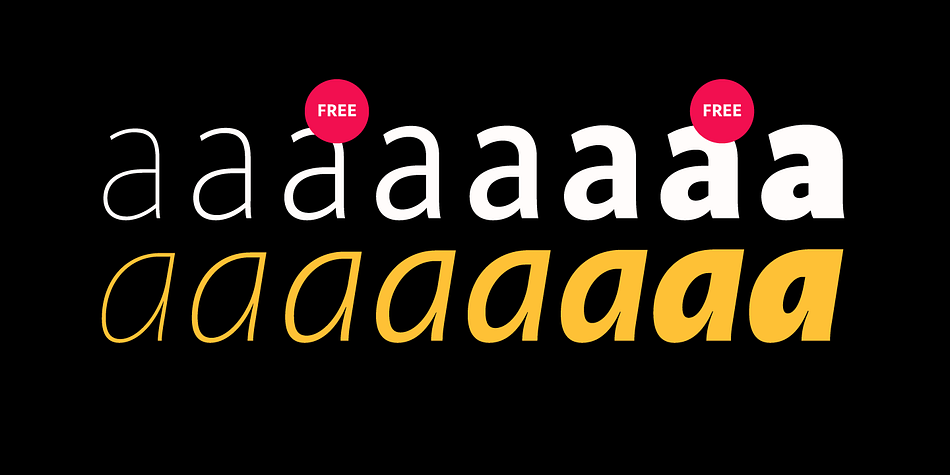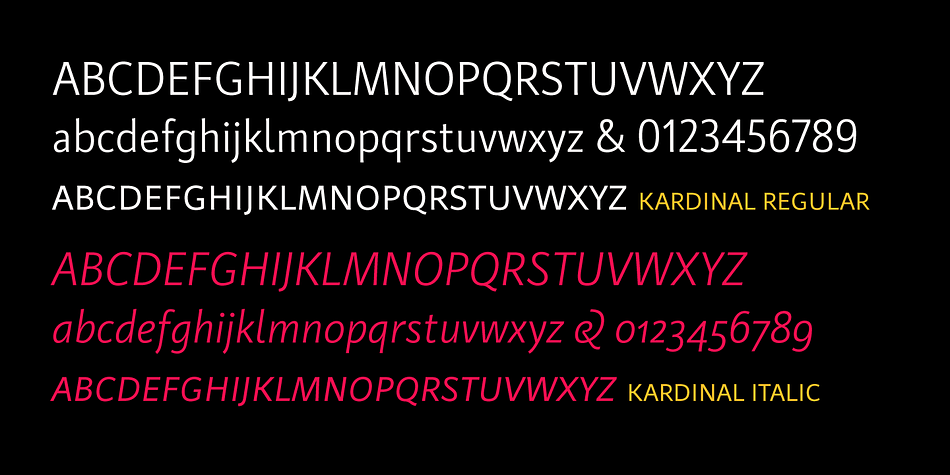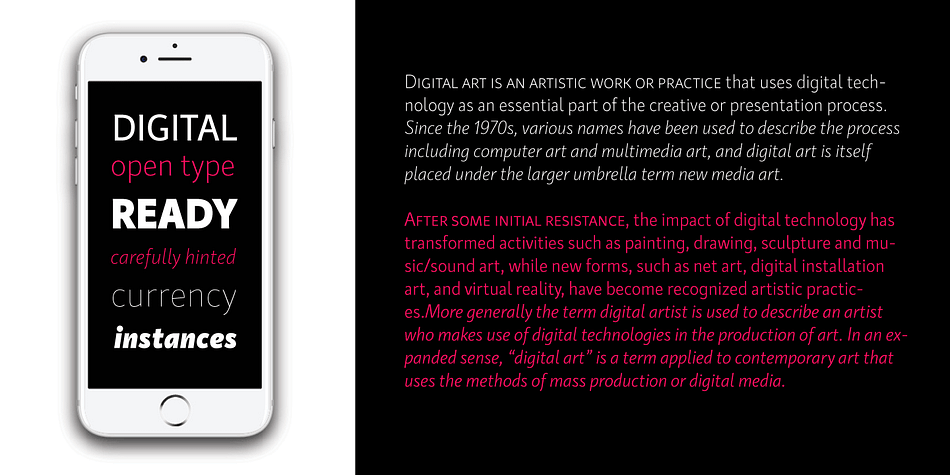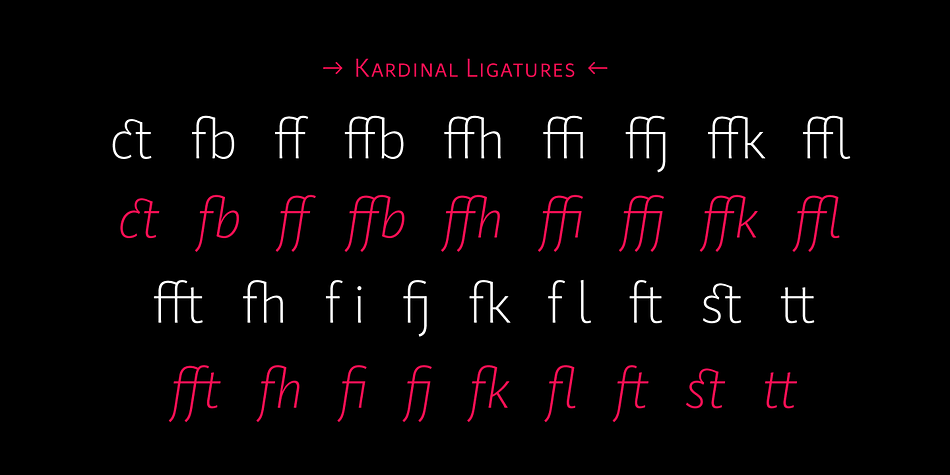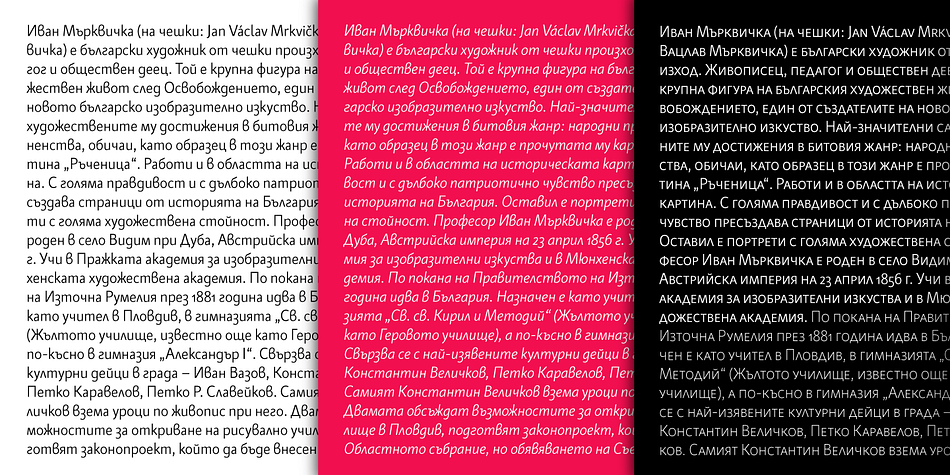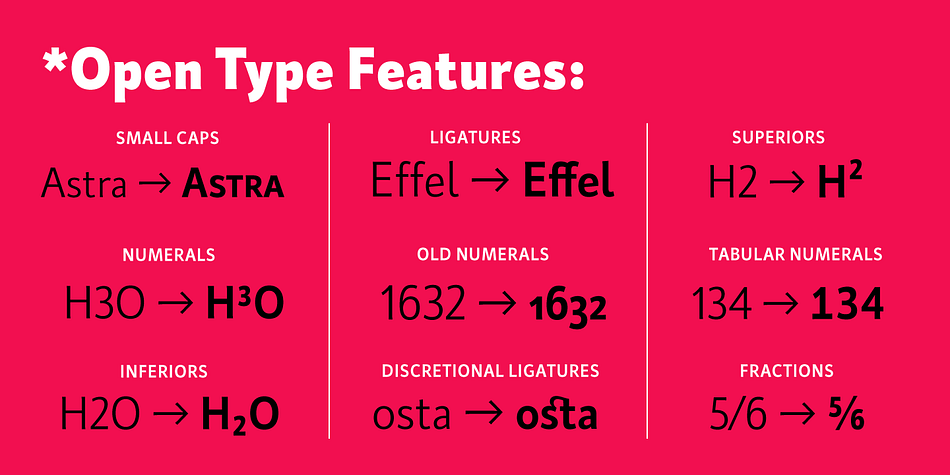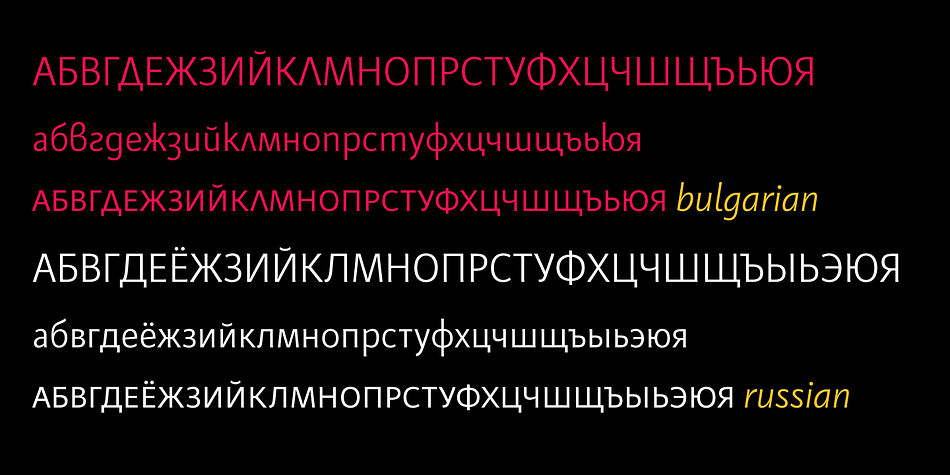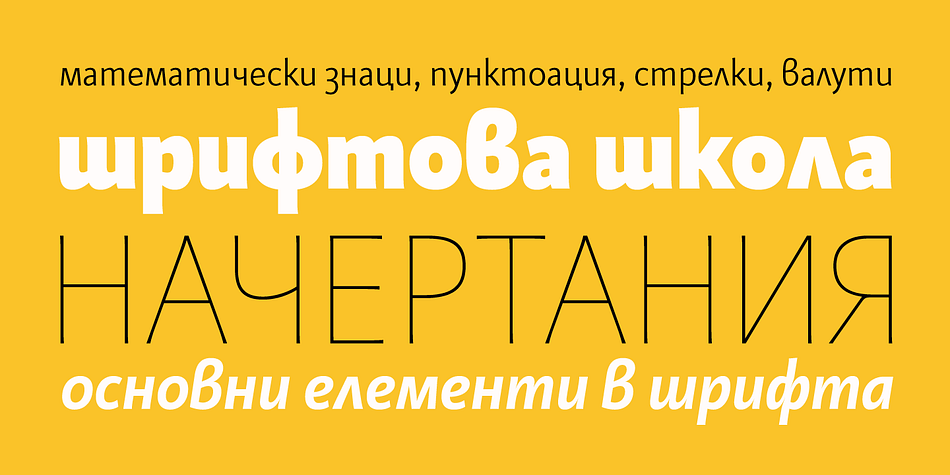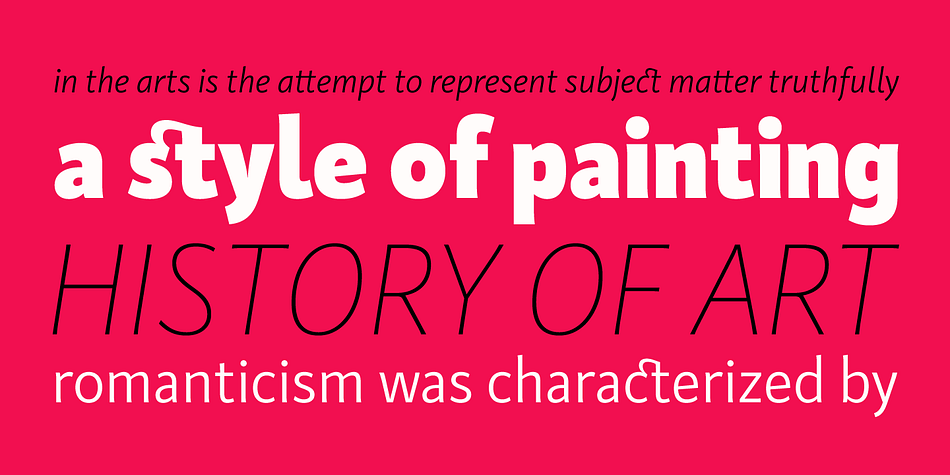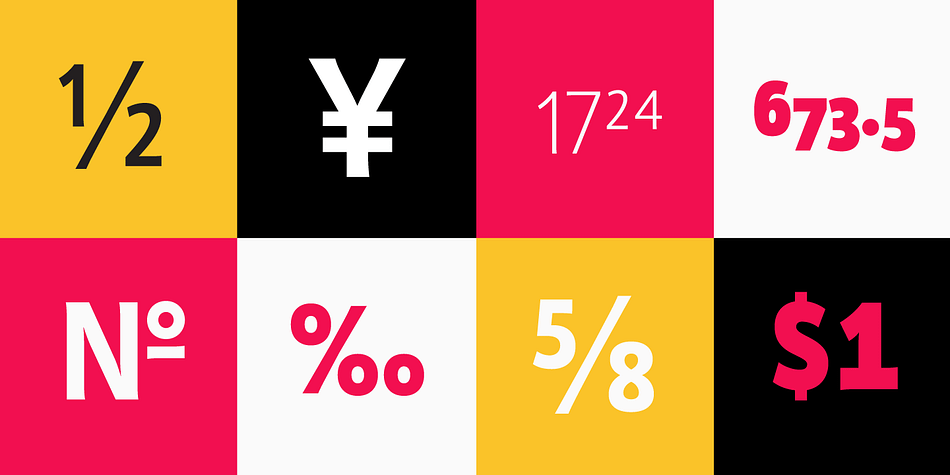
Designed by Ani Petrova, Kardinal is a sans serif font family. This typeface has sixteen styles and was published by Ani Dimitrova.
Kardinal is a sans serif humanistic type family. The family has 16 weights, ranging from Thin to Black with extra drawn italics and small caps versions. The Kardinal type family is ideally suites for small text, books and magazines, branding, posters, as well as web and screen design, headlines and more.
Kardinal comes in 16 styles with extended language support. All weights contain standard ligatures, proportional figures, tabular figures, old style figure, numerals and arrows, matching currency symbols and fraction.
The construction of characters combines between clean grotesque style and calligraphic features with humanist fragrance. Out standing for the designs are the small serifs. They are giving the letters movement and freshness, as well as contribute to a better readability in different volume texts and including lots of details that give it a unique personality. The Regular and Medium weights are perfect for body text while the italic give an interesting texture to the text. The range of styles give a good flexibility to this family. The fonts are carefully hinted and perfect for digital use.